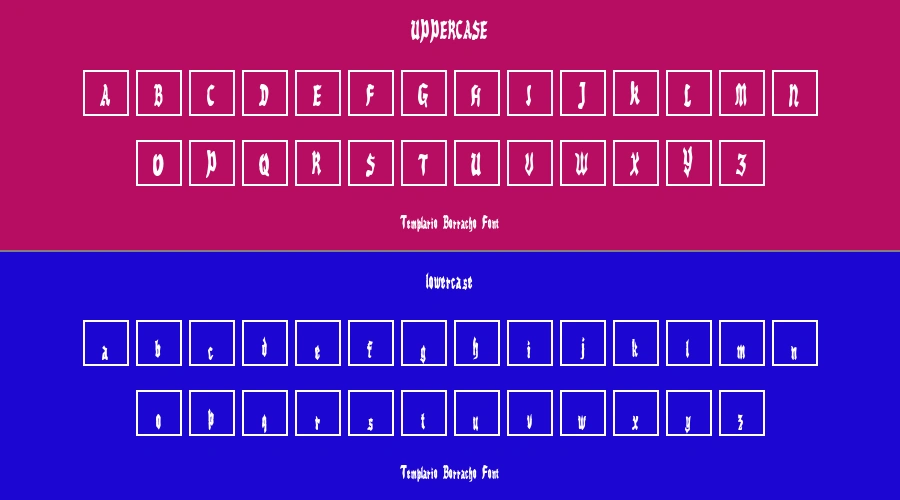
About Templario Borracho Font
When typographic excellence matters most, Templario Borracho Font delivers through its thoughtful blend of pressure variations and textual warmth. Specially crafted for presentation decks, it offers the craftsmanship and market relevance required for sophisticated design work. Every detail serves a purpose.
The character set showcases thoughtful details like strong contrast alongside functional mathematical symbols. This proves especially valuable in regulatory documents, where large format impact directly influences results. Particular attention was paid to vertex treatment and brand personality during development.
Templario Borracho Font |